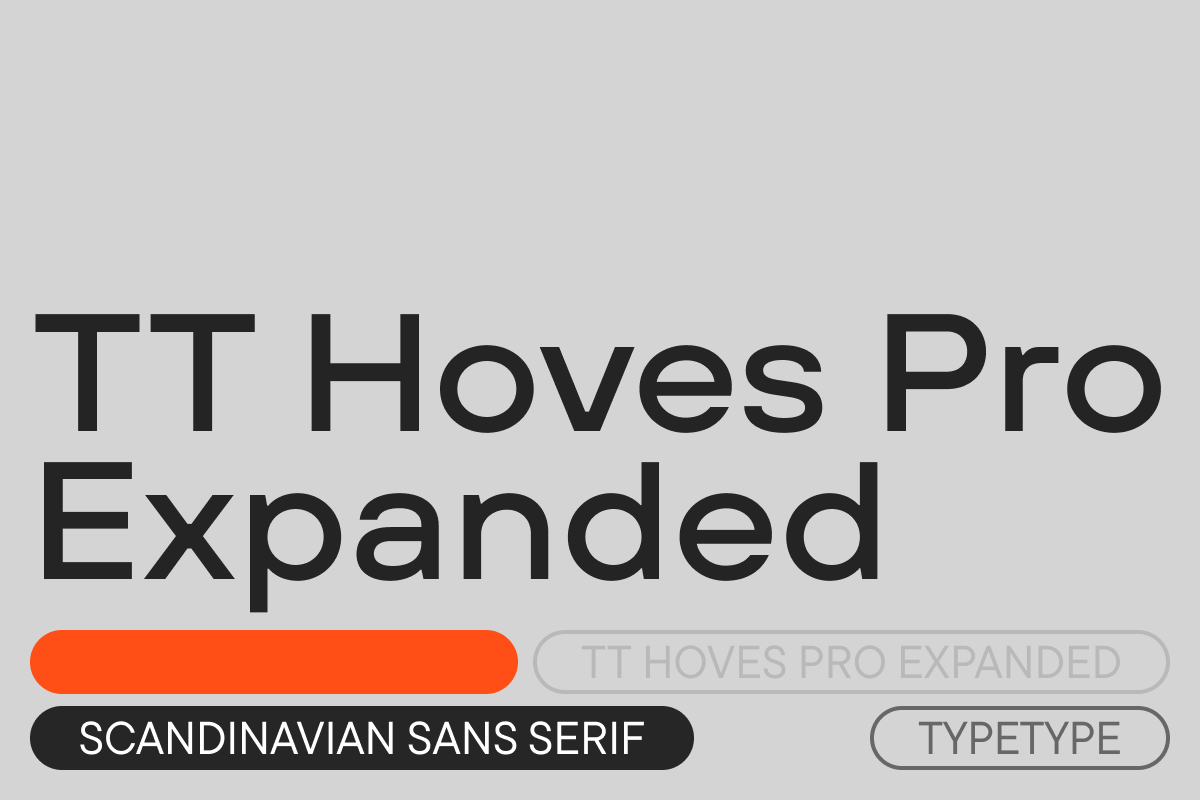
TT Hoves Pro Expanded ExtraBold Italic
TT Hoves Pro is one of the studio’s bestsellers included in our core set of versatile fonts. It is a Scandinavian sans serif with a neutral but recognizable character. One of this font’s key characteristics is a visual lack of contrast. The name TT Hoves is formed by combining the initial syllables of the words "horizontals" and "verticals." It emphasizes the dominance of horizontal and vertical strokes in the font’s glyph design.